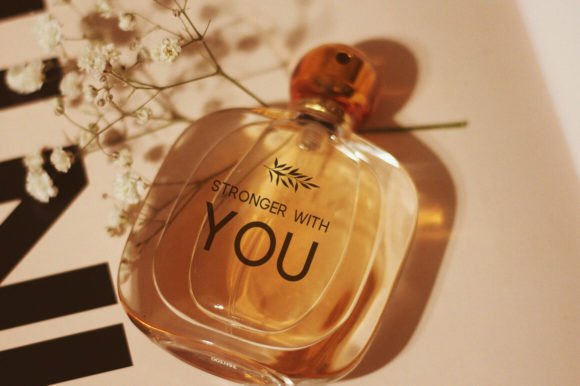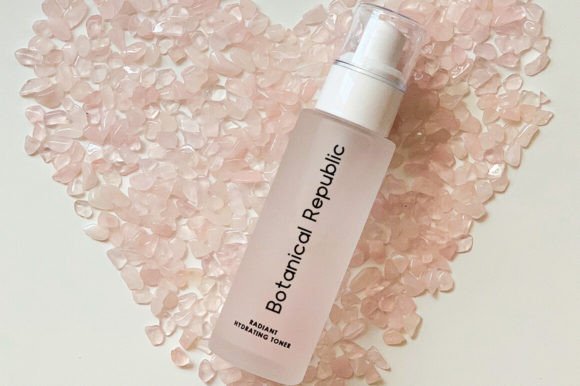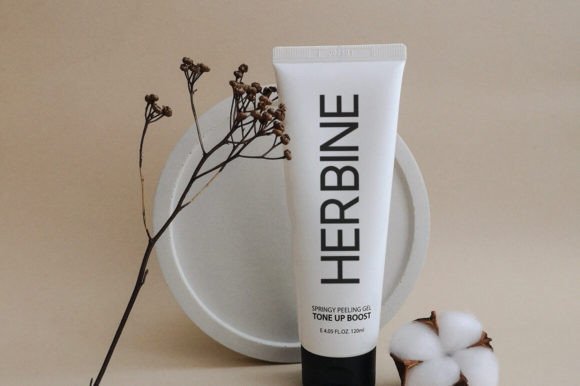
Introduction to Nathin Flogina Font
Have you ever been working on a creative project and suddenly, the perfect font pops into your mind? It’s like a spark of inspiration that sets your design ablaze. For many designers, this feeling is a familiar one. But what if we told you there’s a font that can evoke this same magic, time and time again? Say hello to the Nathin Flogina Font, a modern headline font that’s about to become your new go-to design resource.
With its sleek, high-quality design, Nathin Flogina Font is perfect for a wide range of creative projects. Whether you’re working on branding materials, social media graphics, or even movie covers, this font has got you covered. And the best part? It’s available for free download, complete with a transparent background, making it easy to customize and integrate into your design.
Key Features of Nathin Flogina Font
- High-quality, professional design suitable for creative projects and presentations.
- Unique, elegant design style that can elevate any visual content or creative project.
- Supports a wide range of languages, making it a versatile design resource for global audiences.
Honest Review: Nathin Flogina Font
I recently had the chance to work with the Nathin Flogina Font, and I must say, it’s been a game-changer for my creative projects. The font is a fantastic design resource that’s perfect for adding a unique touch to your work.
One of the standout features of the Nathin Flogina Font is its transparent background, which makes it incredibly easy to use and customize. I’ve found that it pairs well with a wide range of design elements, from bold graphics to minimalist text overlays.
- ✨ High quality design that’s perfect for creative projects
- ✨ Transparent background for easy customization
- ⚠️ Limited character set, which may not be suitable for longer texts
- ⚠️ Not all font sizes render equally well, so some tweaking may be required
Overall, I’m really impressed with the Nathin Flogina Font. While it’s not perfect, its unique design and high quality make it a great addition to any designer’s toolkit. With a little experimentation and patience, I’m confident that you’ll be able to get the most out of this fantastic font.
Tips for Getting the Most Out of Nathin Flogina Font
To get the most out of Nathin Flogina Font, use it in creative projects where you want to add a unique touch. You can also use it in conjunction with other design elements to create a cohesive look.
The Nathin Flogina Font is commonly used in design projects that require a high-quality, unique font. It’s particularly useful for creating logos, business cards, and other marketing materials where a professional look is essential.